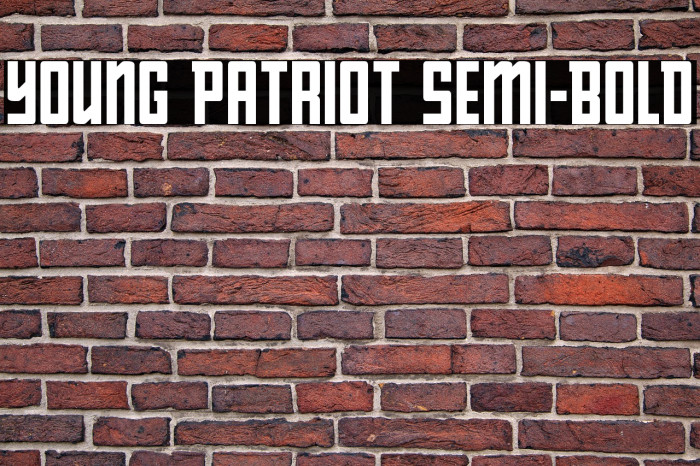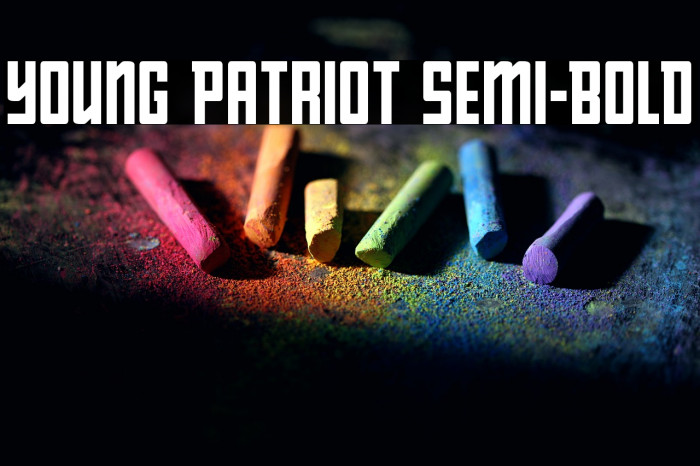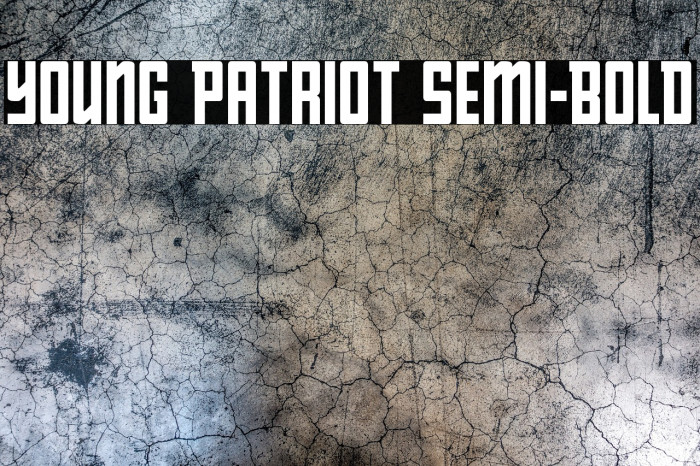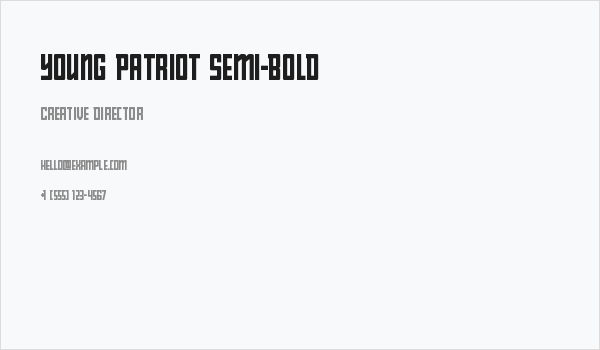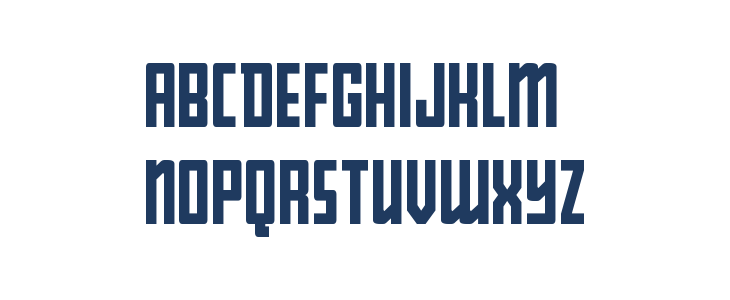
Young Patriot Semi-Bold Font
Young Patriot Semi-Bold Description
This font features a bold and impactful design with strong geometric shapes and a modern aesthetic. The uppercase letters are tall and narrow, giving a sense of strength and stability. The lowercase letters maintain a consistent width, complementing the uppercase with a slightly softer edge. Numbers are clear and easy to read, while special characters are designed to match the overall bold style. The font's structure is clean and precise, making it suitable for attention-grabbing headlines and titles.
| Proposed Projects | Ideal for posters, branding, headlines, and any project requiring a strong visual impact. |